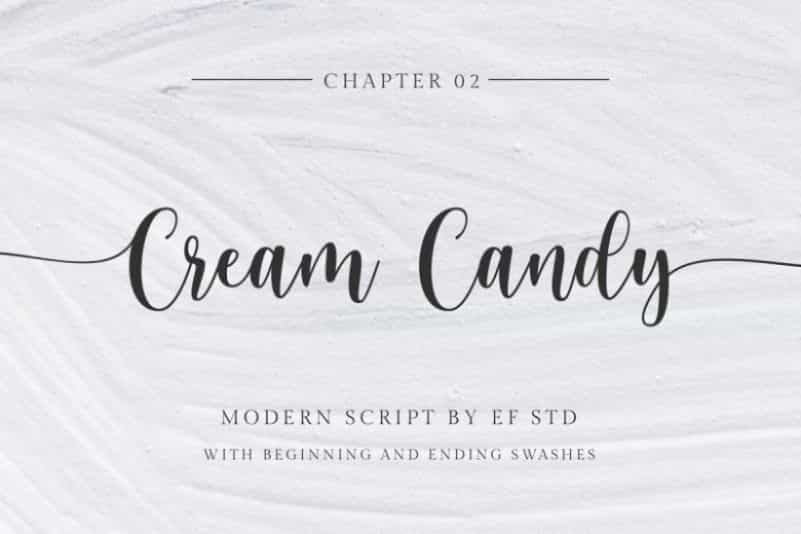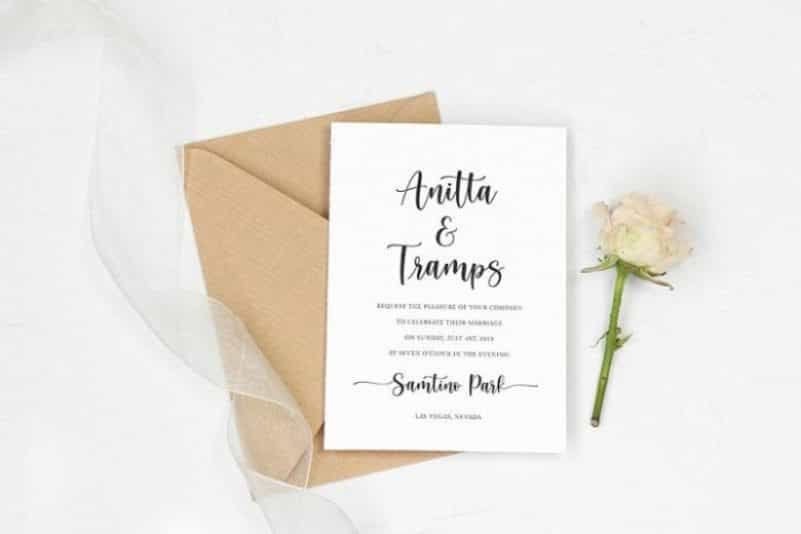
Cream Candy Font is an elegant script font, a gourmet font is an organic and contemporary handwritten font. It is ideal for logo, invitations, letterheads, wedding designs, social media, ads, product wrappers, product designs, labels, photography, watermarks, special occasions or anything.